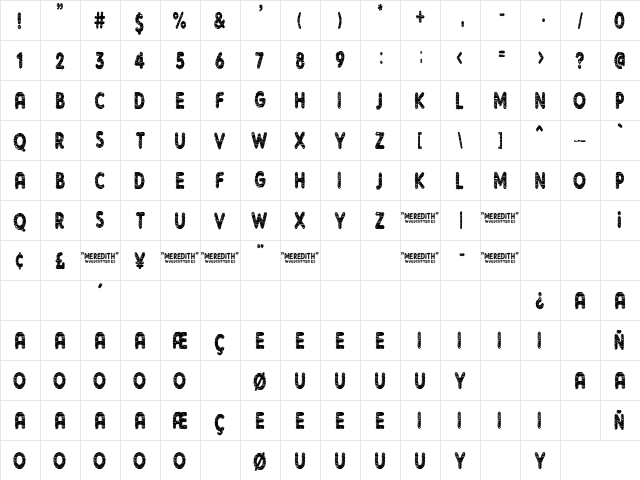
Meredith Regular
| Designer | Woodcutter Manero |
Design Context for Meredith Typeface
Meredith takes a measured approach to typography — its balanced proportions and neutral character make it a reliable workhorse for both digital and print work.